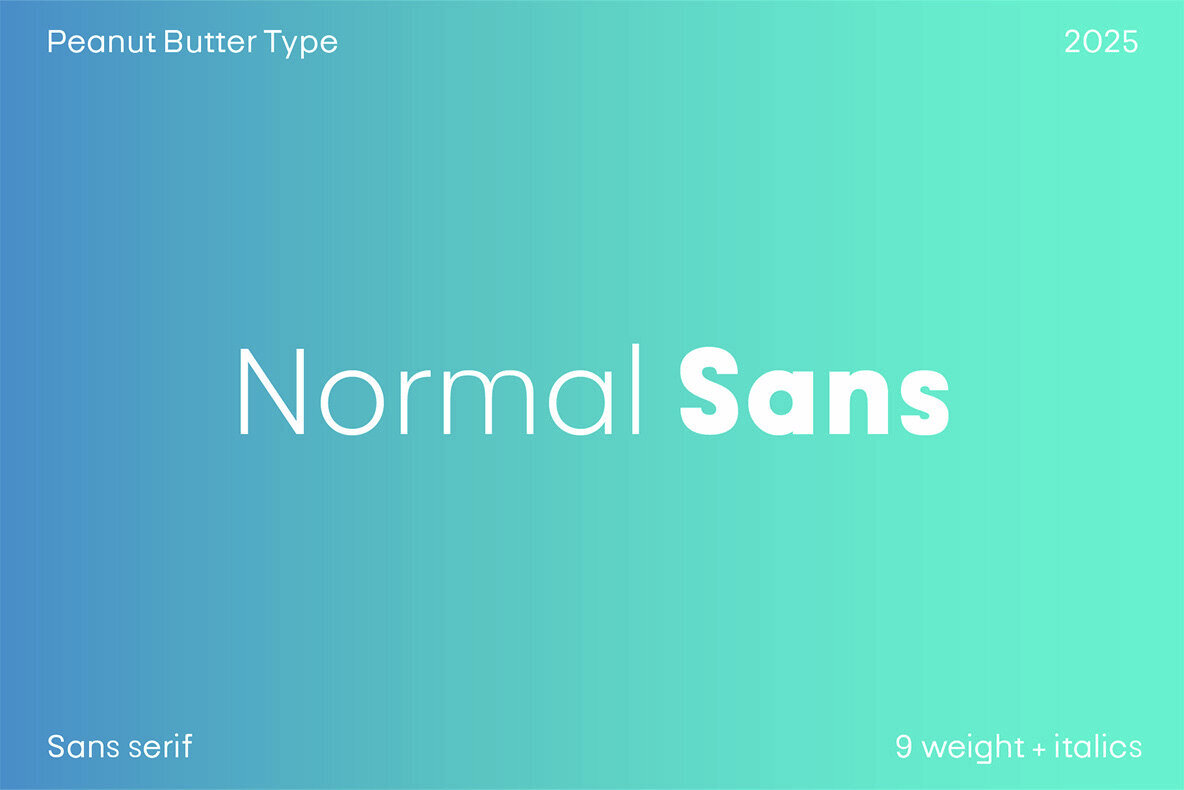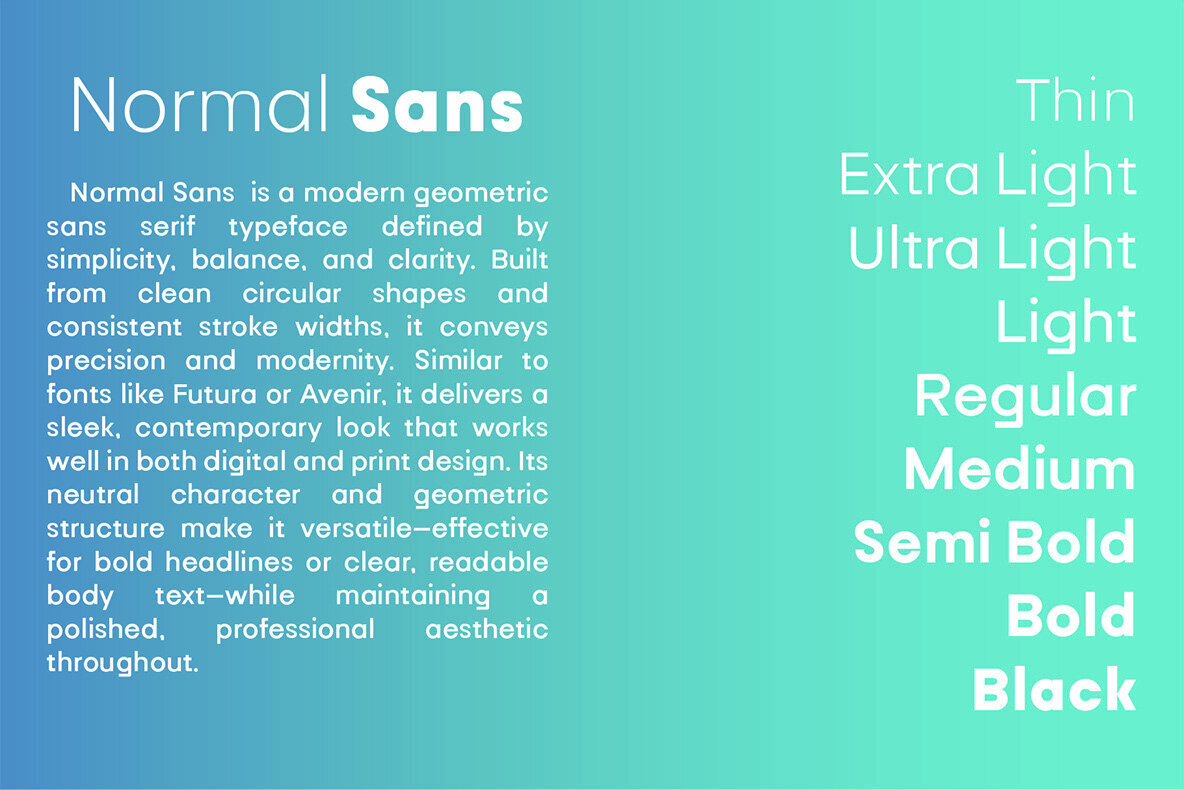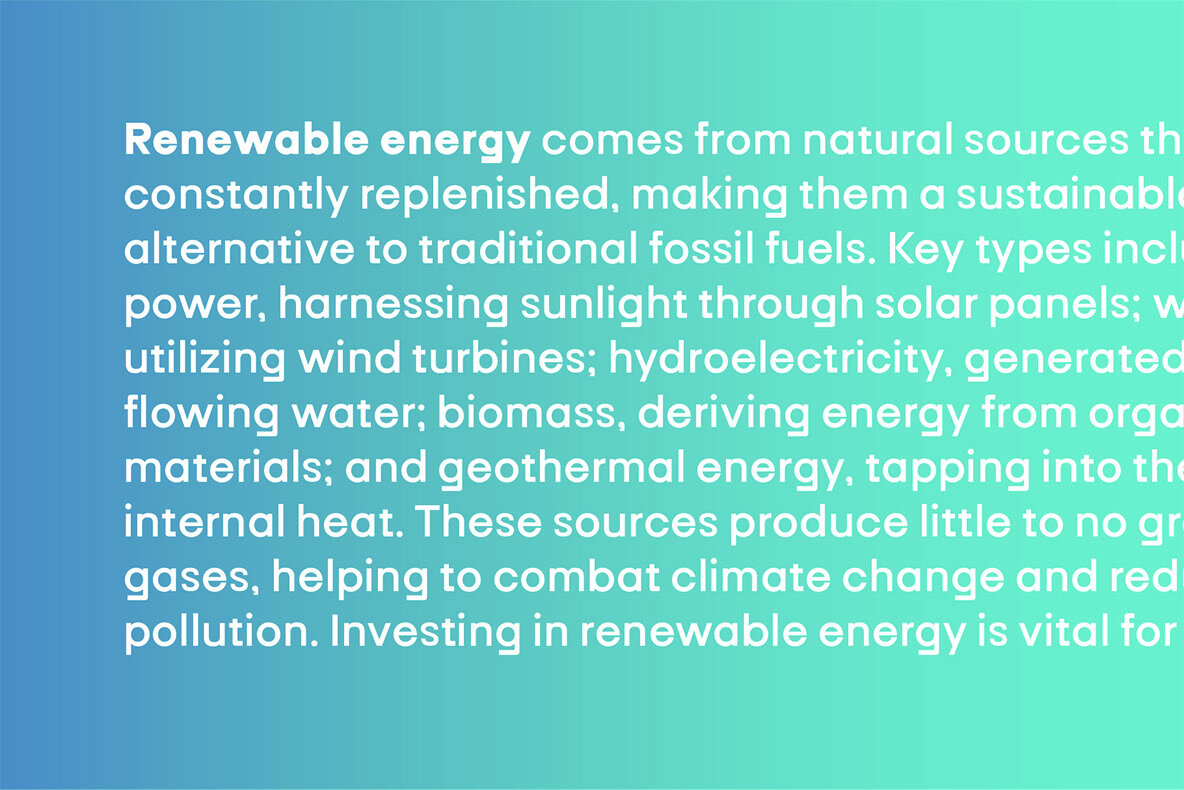
Normal Sans Font
Normal Sans embodies modern sophistication with its geometric sans serif appearance, designed around the principles of simplicity and precision. Its construction, characterized by clean circular forms and uniform stroke widths, reflects an aesthetic of clarity and equilibrium. Drawing parallels to celebrated typefaces like Futura and Avenir, Normal Sans delivers a sleek, contemporary vibe, making it ideal for both digital and print applications. The neutral tone and structured geometry of Normal Sans allow it to shine in a variety of contexts, whether for commanding headlines or for body text that demands readability. It maintains a polished and professional look, making it a versatile selection for designers seeking a font that bridges modernity with timeless appeal.Normal Sans: A Geometric Sans Serif Wonder